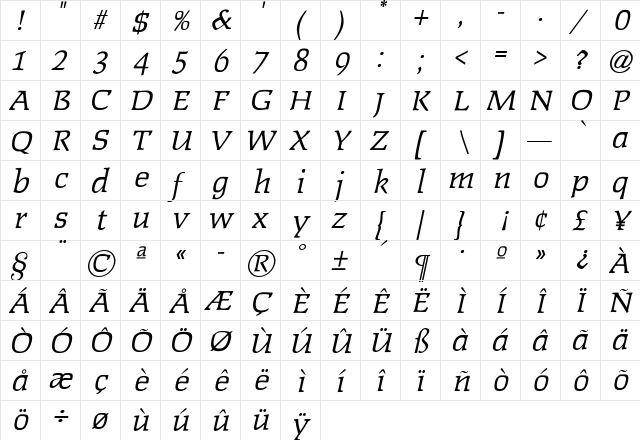
Polaris Regular Font Preview
Polaris Regular
Design Context for Polaris Typeface
Polaris is a composed and adaptable typeface that performs quietly and consistently across a wide range of design contexts.